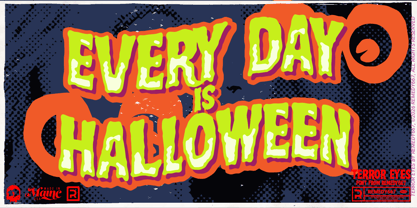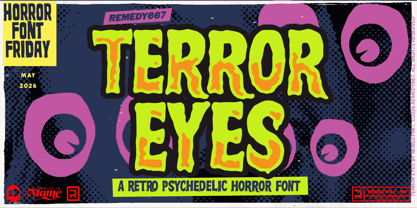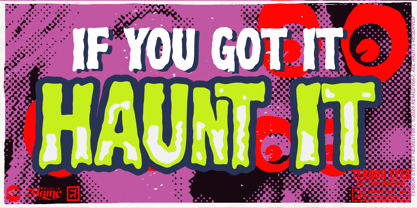
Terror Eyes 667
by Remedy667
The Terror Eyes 667 Font Family was designed by Nick Polifroni and published by Remedy667. Terror Eyes 667 contains 3 styles and family package options. More about this family
Keep your eyes peeled, because Terror Eyes is staring straight into your soul! Sourced from a mysterious lettering sample discovered in the dark corners of Identify This Font on Reddit. Terror Eyes is a fiendish typeface inspired by the pages of classic Famous Monsters magazine horrors.
With dramatic bold shapes and vintage creature-feature energy, Terror Eyes is perfect for titles, taglines, and anything that could benefit from a more natural hand drawn look. Rotating characters and ligatures keep the text lively and unpredictable. Every line feels like it crawled straight out of a monster movie.
• Inspired by classic Famous Monsters-style horror lettering
• Rotating characters for natural, varied typography
• Includes custom ligatures for added vintage flair
• Multilingual support for worldwide mayhem